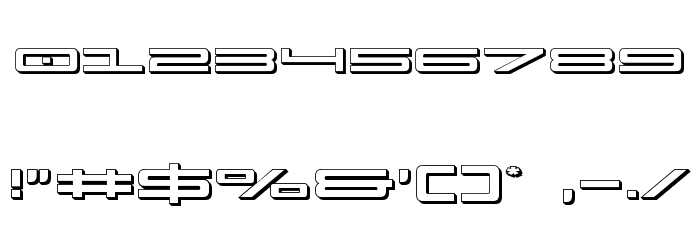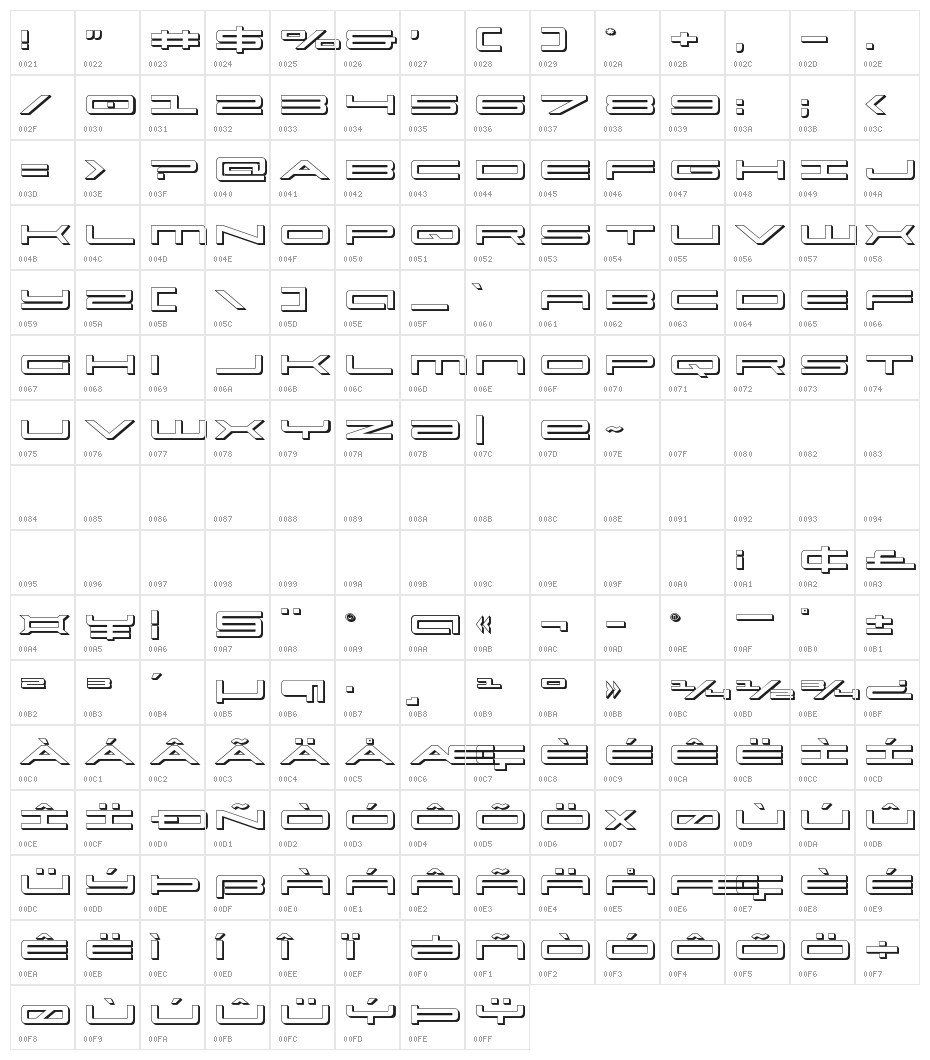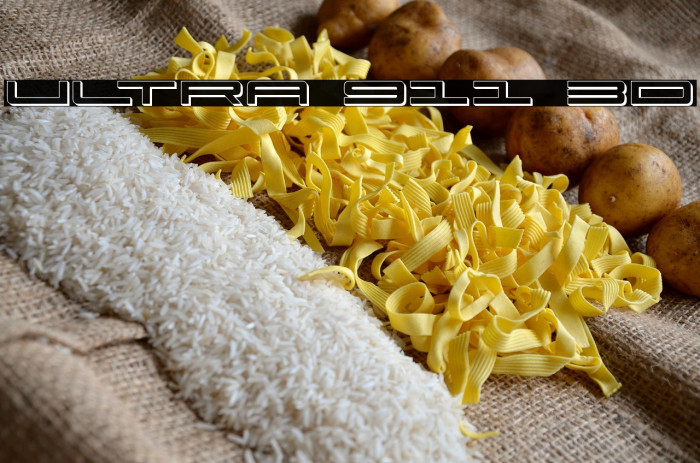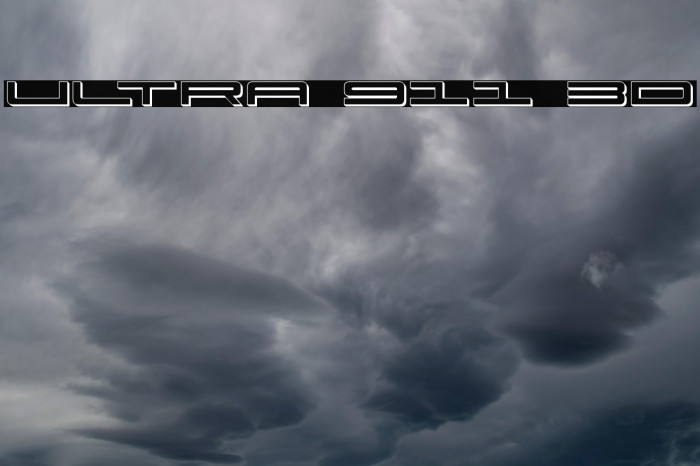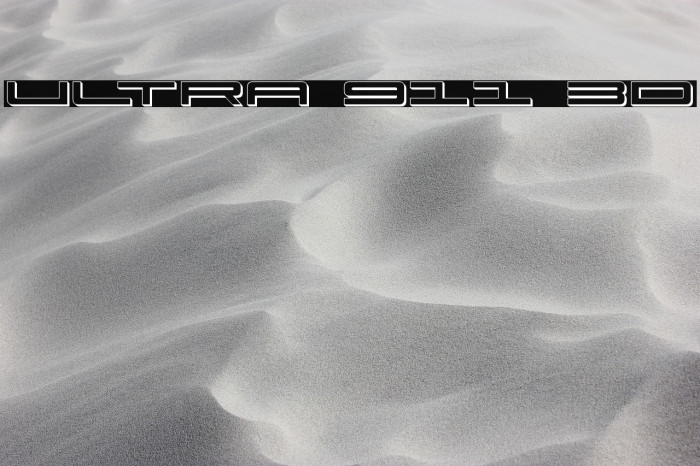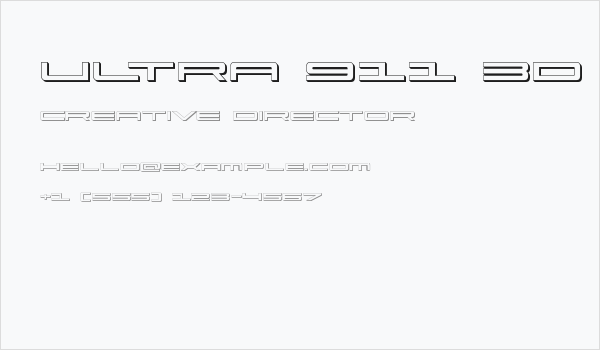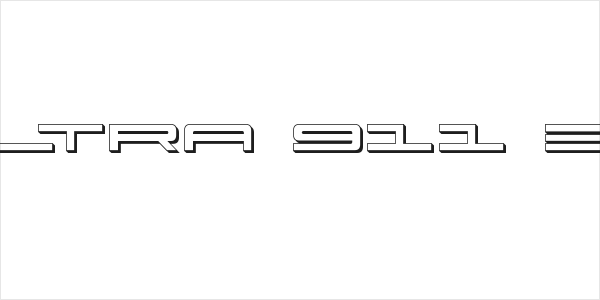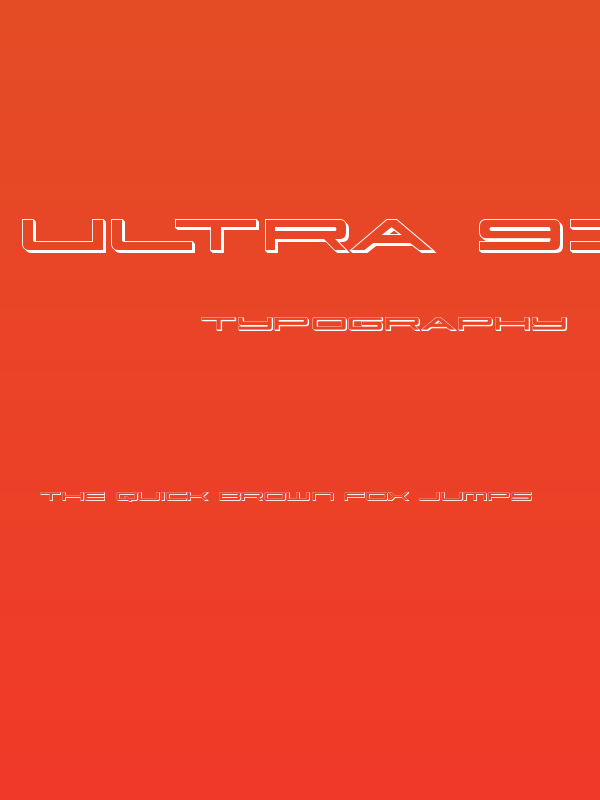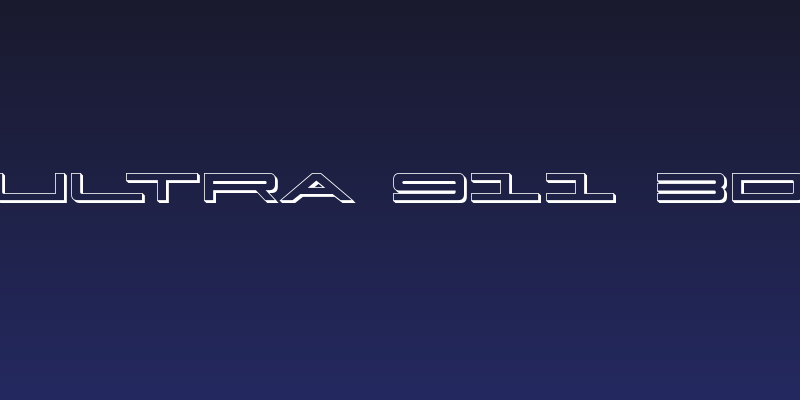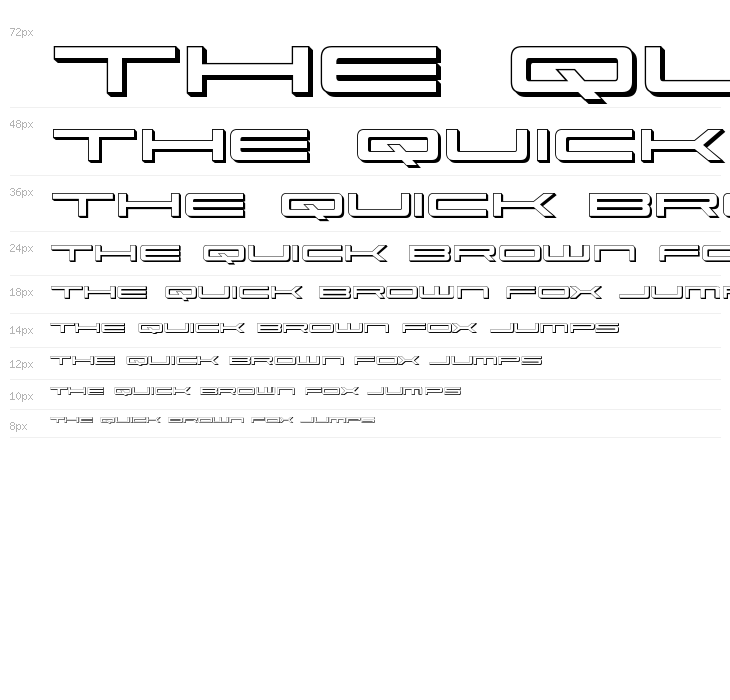
Ultra 911 3D Font
Ultra 911 3D Description
This font features a futuristic and geometric design with a three-dimensional effect. The characters are outlined, giving them a hollow appearance, which enhances the 3D illusion. The lines are clean and sharp, with consistent thickness throughout, contributing to a modern and sleek aesthetic. The uppercase and lowercase letters maintain a uniform style, while the numerals and special characters are designed to match the overall theme. The font's unique structure makes it stand out, ideal for projects that require a contemporary and tech-savvy look.
| Proposed Projects | Ideal for technology branding, sci-fi movie posters, video game titles, and modern advertising campaigns. |